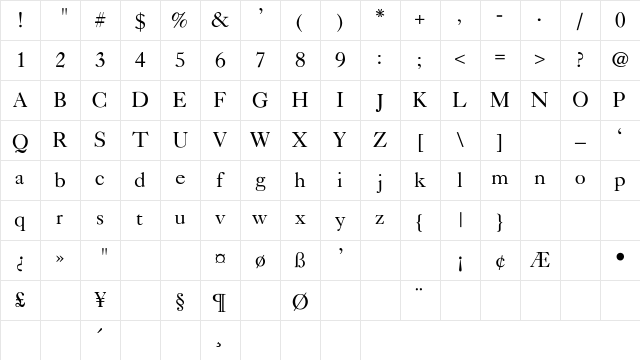
Nelsie-Light Regular
Design Context for Nelsie-Light
Nelsie-Light is a composed and adaptable typeface that performs quietly and consistently across a wide range of design contexts. Its slender proportions lend an understated elegance to any composition.